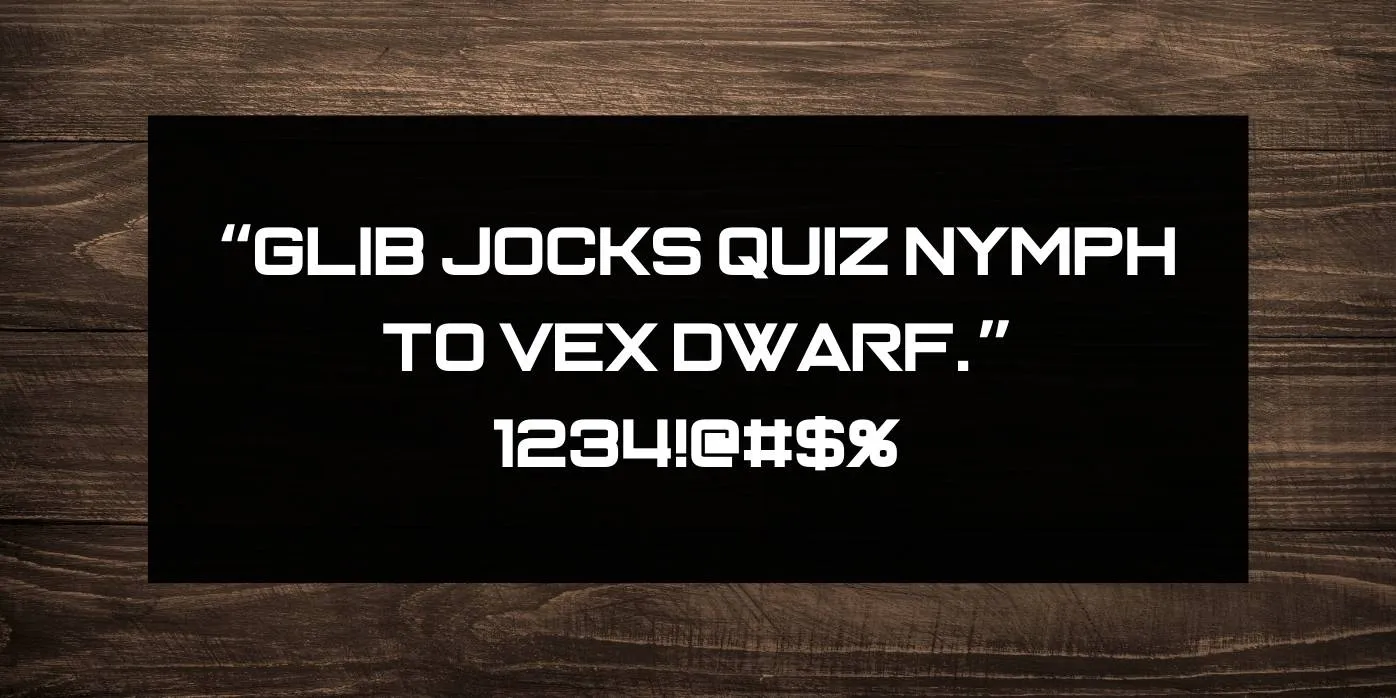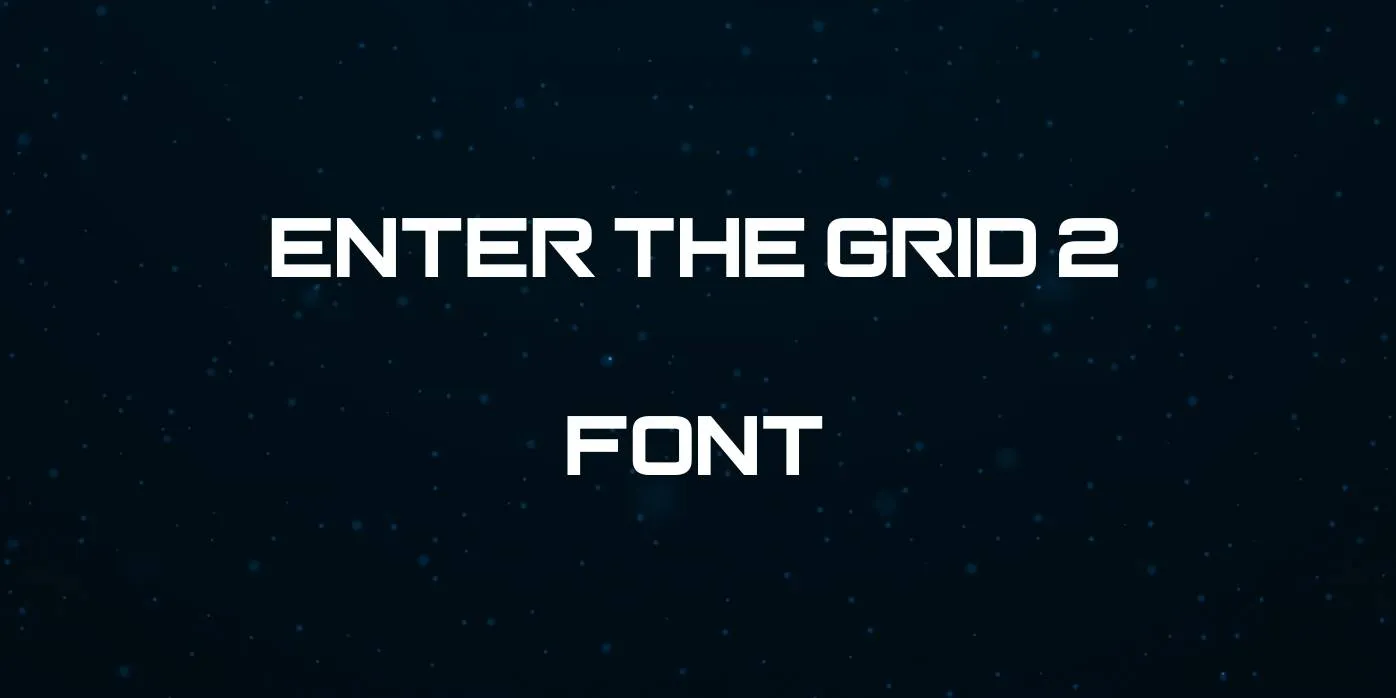
Enter The Grid Font
It is a very attractive and modern font. This font is designed by Andrew McCluskey. Enter The Grid Font falls under the version 1.0 trademark notice of this font is Fontstruct of FSI Font Shop International Gmbh. All rights are reserved by Andrew McCluskey.
It was created on 21-02-2014. It contains characters, capital letters, numbers, punctuations, and symbols. This font has 132 glyphs, 1024 units per em and the number of characters is 135. Embedding rights of preview and printing are allowed.
Its family class is Sans Serif. The weight of the font is Semi-Bold and the width is expanded. It supports bold Mac style. It provides the facility of an online generator tool which makes your work easier and timeless.